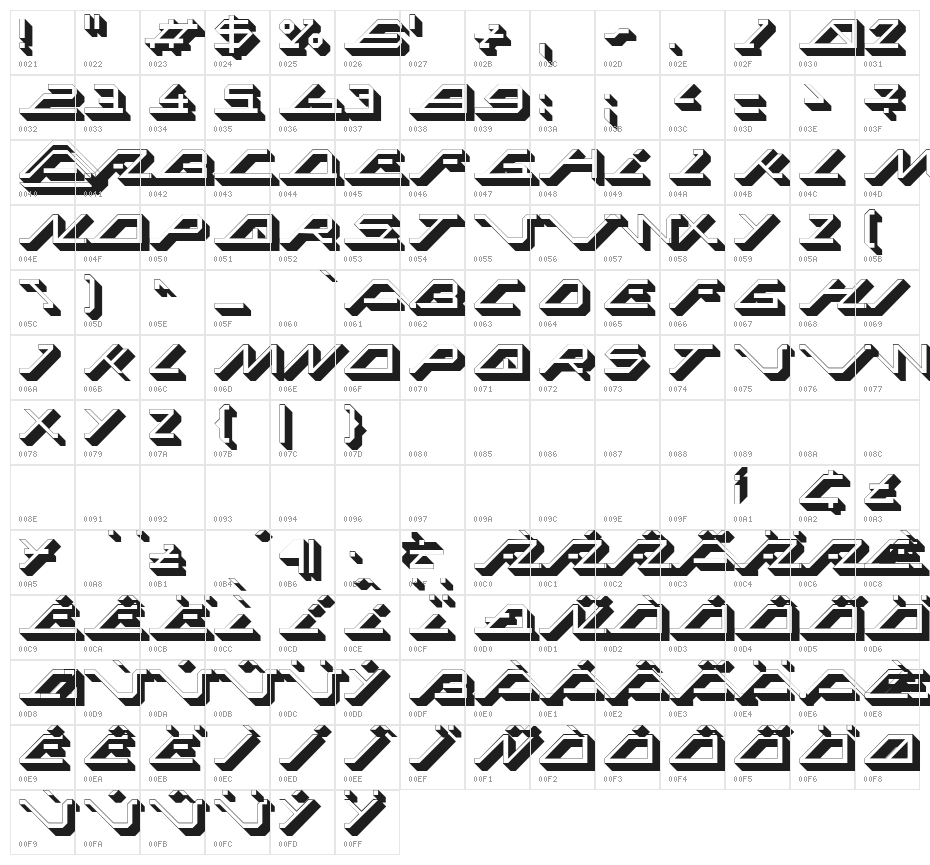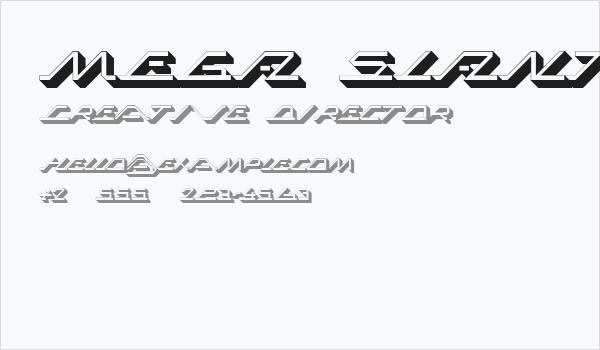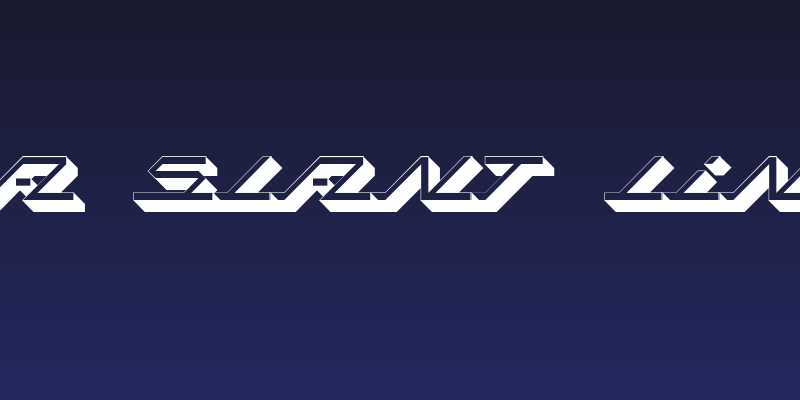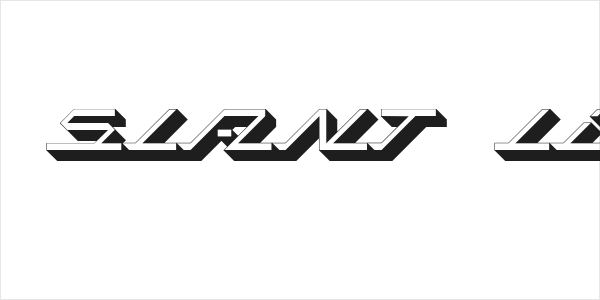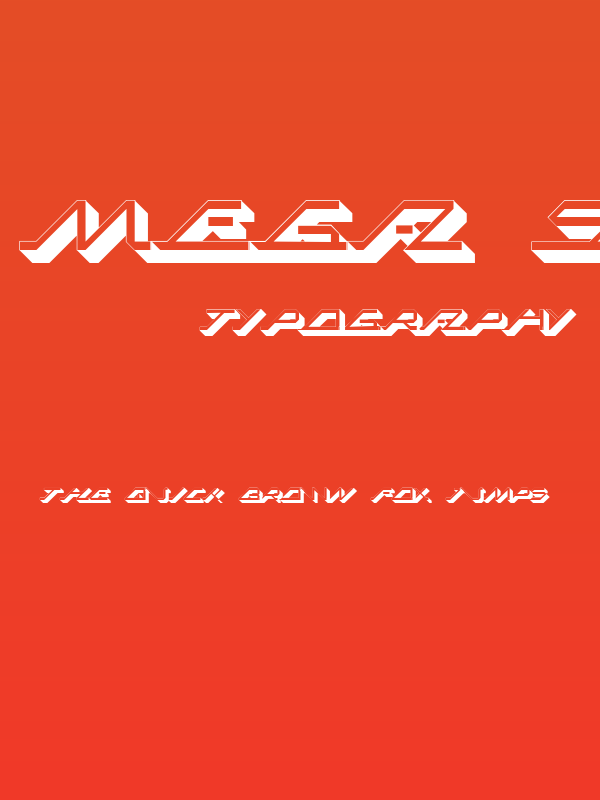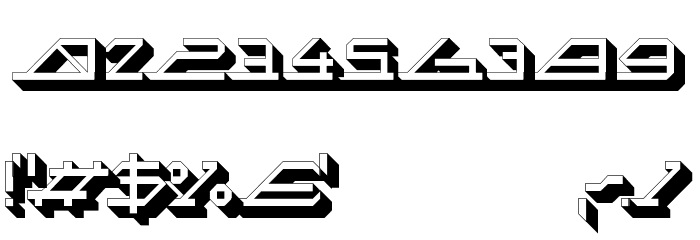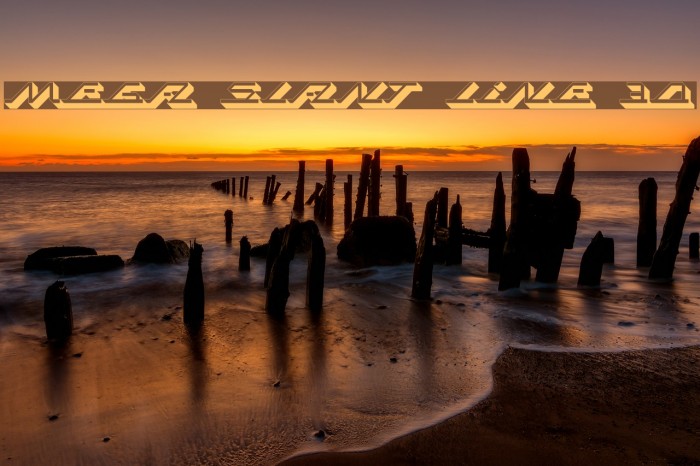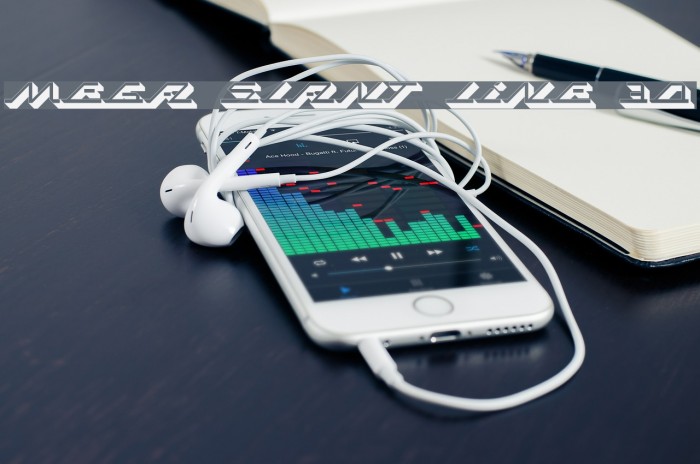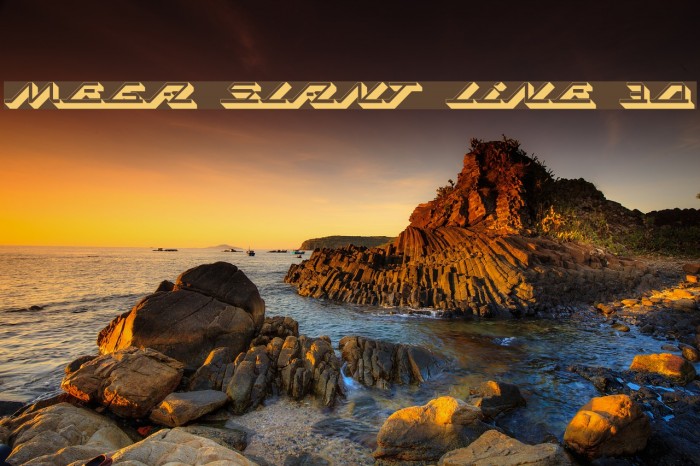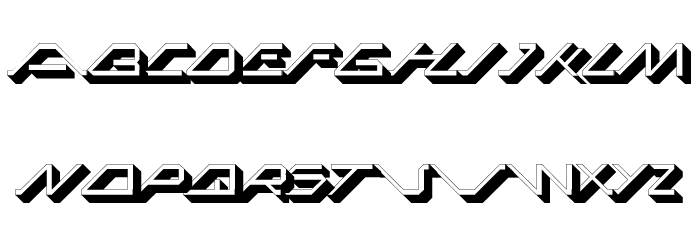
MEGA SLANT LINE 3D Font
This font features a bold, futuristic design with a distinct 3D effect. The characters are slanted, giving a sense of motion and dynamism. Each letter and number is outlined with a shadow that enhances the three-dimensional appearance. The style is geometric, with sharp angles and clean lines, creating a modern and edgy look. The uppercase and lowercase letters are consistent in style, maintaining the same slanted and shadowed effect. The special characters are designed to match the overall aesthetic, ensuring uniformity across all glyphs. This font is ideal for projects that require a strong, impactful visual presence.
| Proposed Projects | Ideal for video game titles, sci-fi movie posters, tech branding, and futuristic-themed designs. |